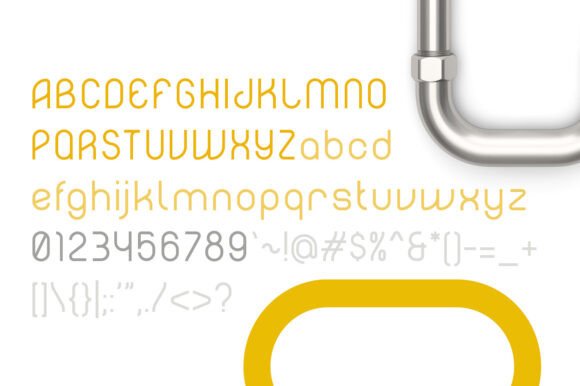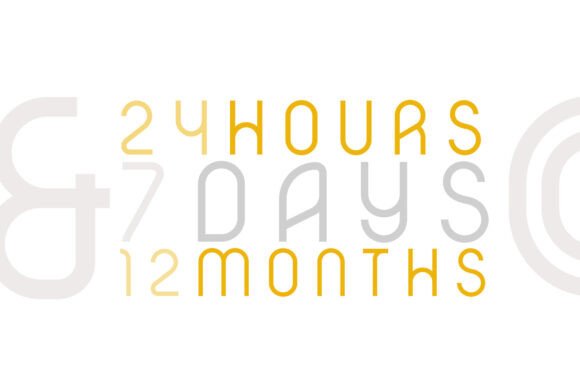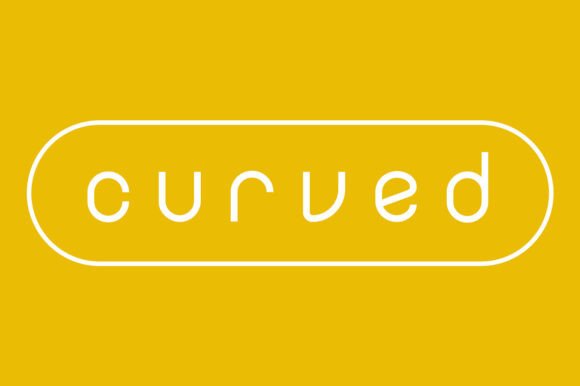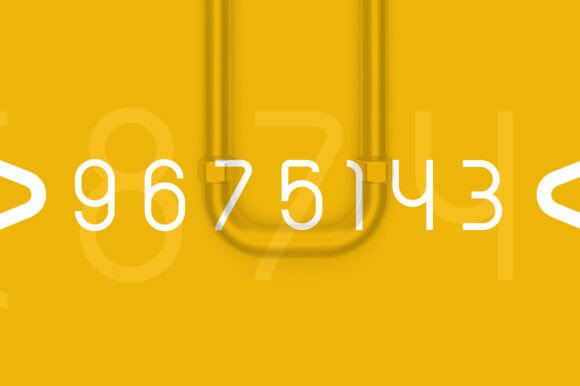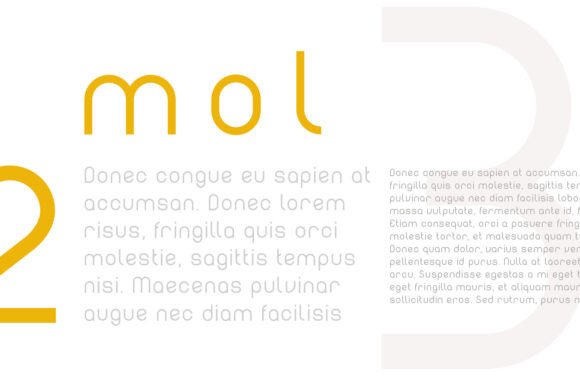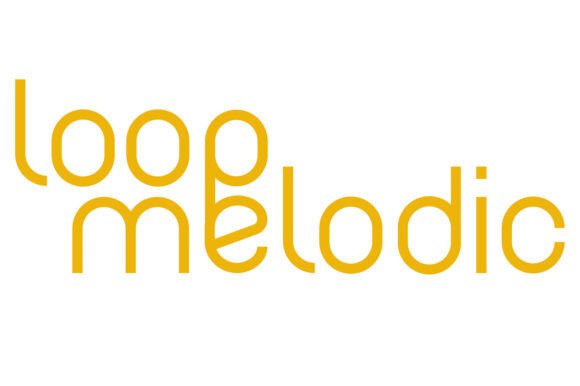
Introduction to Molandic Font
Molandic is a sleek, contemporary typeface meticulously fashioned around the allure of smooth curves.
Its minimalist design radiates modernity, creating a plethora of uses, particularly excelling in the creation of striking logos or the development of a distinct brand identity With its array of standard glyphs, you’ll find Molandic not only enjoyable but practical, simplifying design efforts while elevating them to an entirely new level.